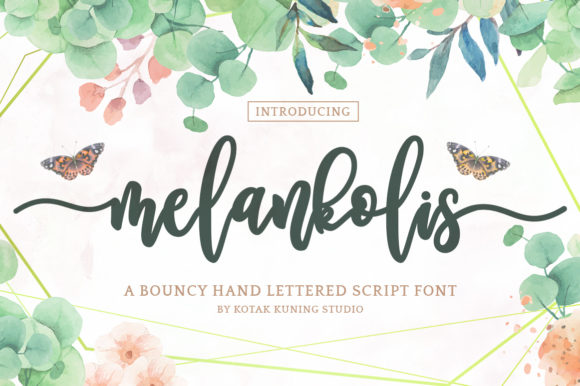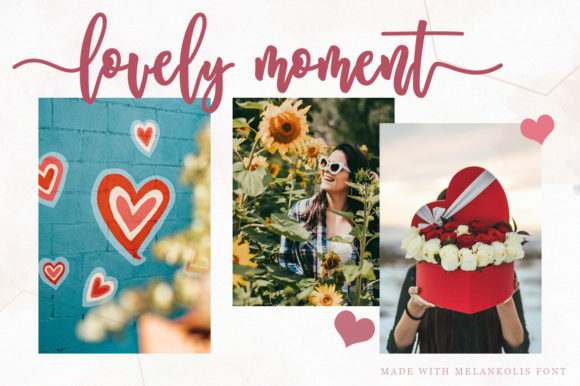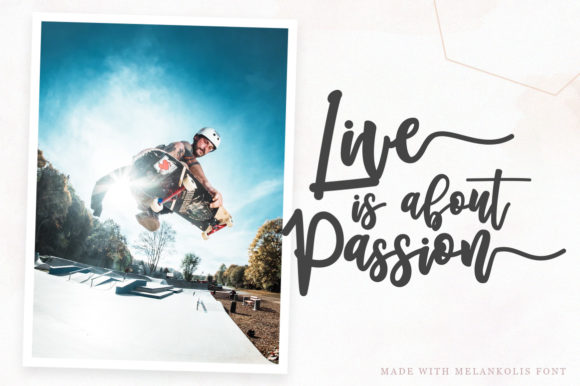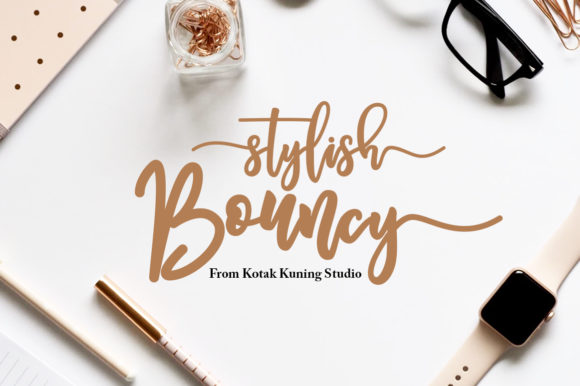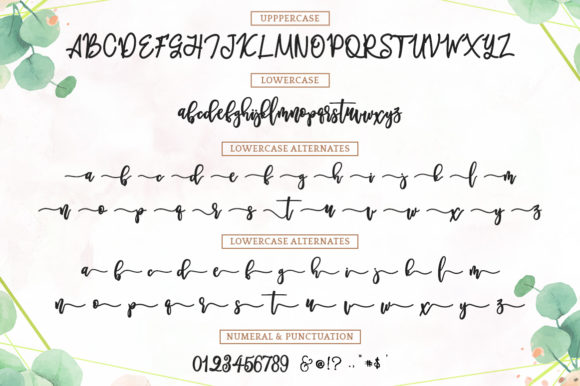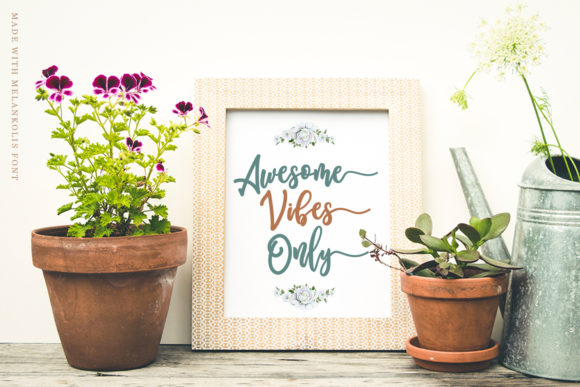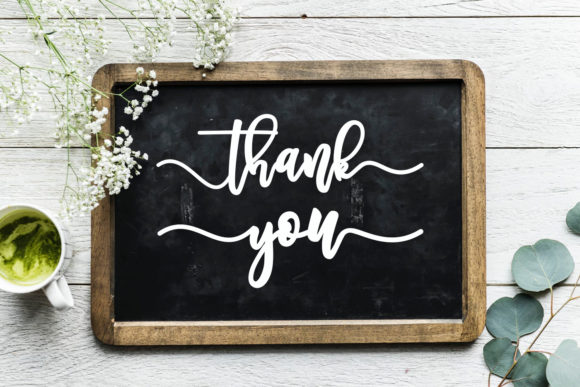
Melankolis Font
About Melankolis Font
Melankolis is a stunning script font with an organic and romantic feel. Use it for any design project that requires a natural twist!